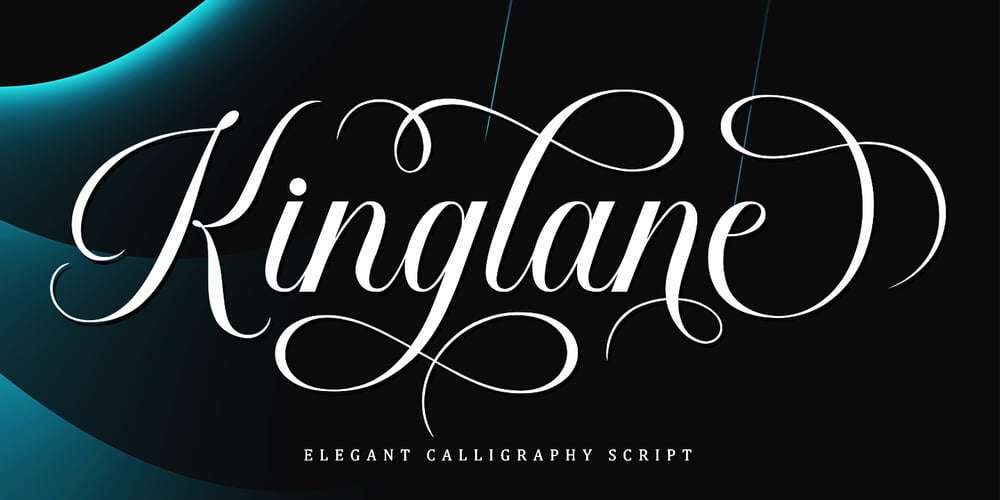
Kinglane
Kinglane font
Kinglane Font Family was designed by Muhammad Nazar and published by Bungletter. Kinglane contains 4 styles and family package options. Kinglane is a very Beautiful, elegant and unique handwritten font. Expertly designed to become a true favorite, this font has the potential to take your creative ideas to the highest level!This font is PUA coded which means you can easily access all the glyphs and strokes!Kinglane is attractive because it is sleek, clean, feminine, sensual, glamorous, simple and highly readable, thanks to its many luxurious letter joints. I also offer a number of viable alternative styles for all letters. Classic style is very suitable to be applied in various formal forms such as invitations, labels, restaurant menus, logos, fashion, make up, stationery, novels, magazines, books, greeting cards/weddings, packaging, labels or all kinds of advertisements. for your purposes. . . . . . .Contains full set:4 Types of style-Uppercase-Lowercase-Alternative- Ligature- Punctuation-Number- Multilingual support.Need help or have questions let me know. I’m happy to help.Thank you & Congratulations on the Design.